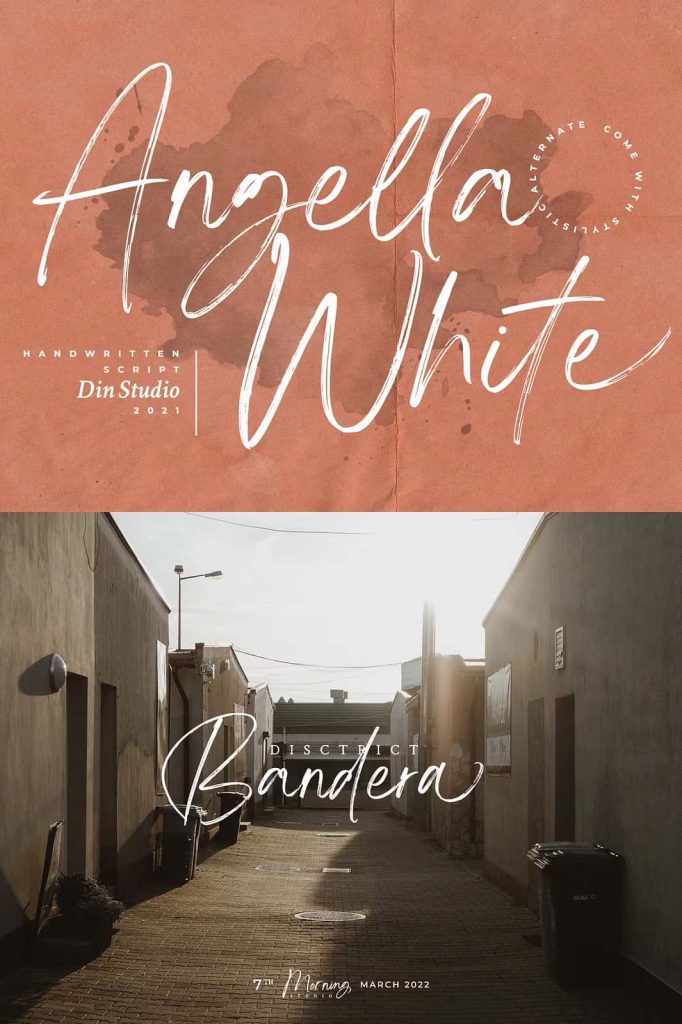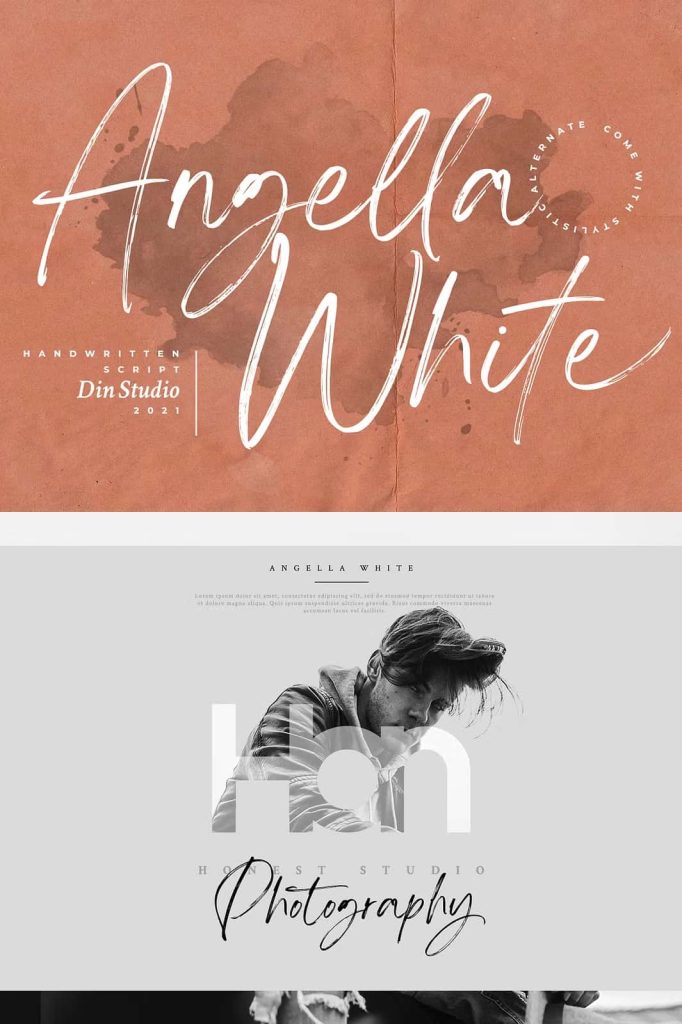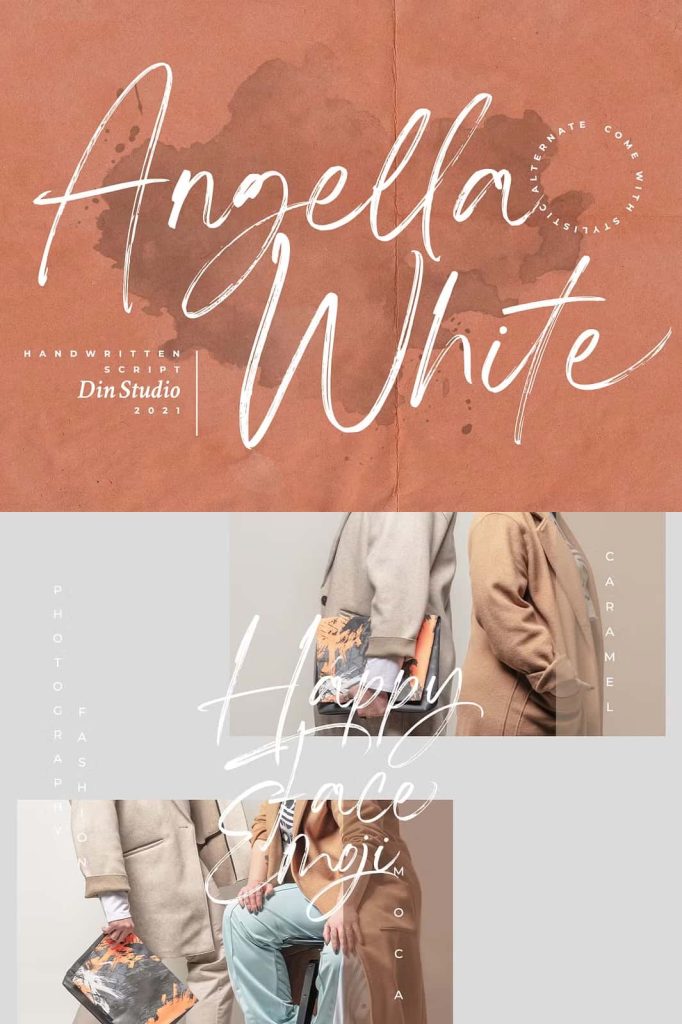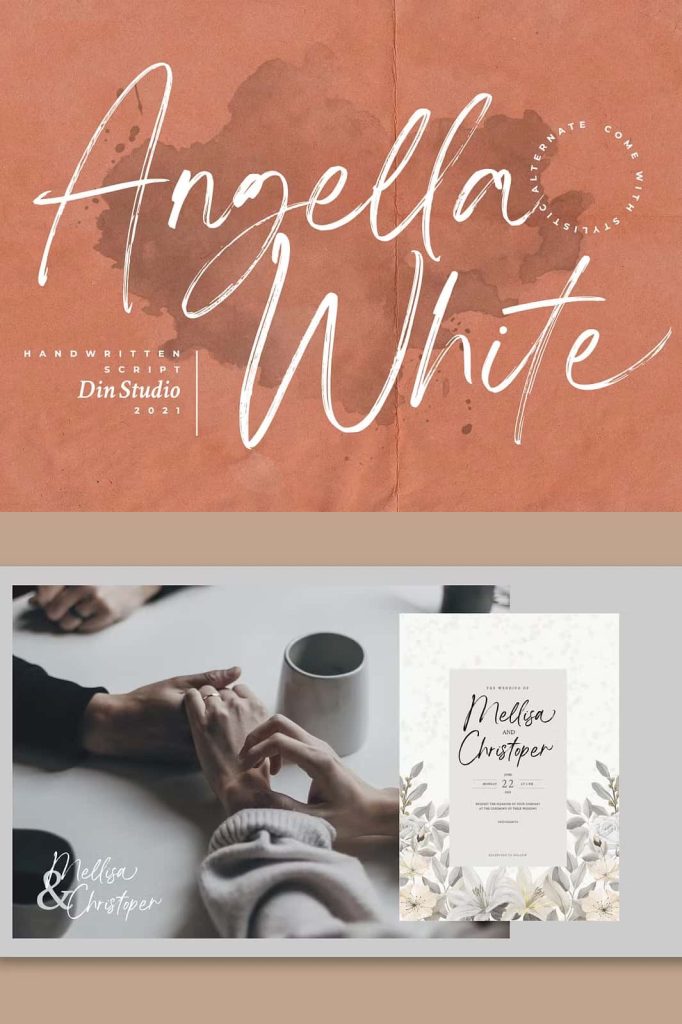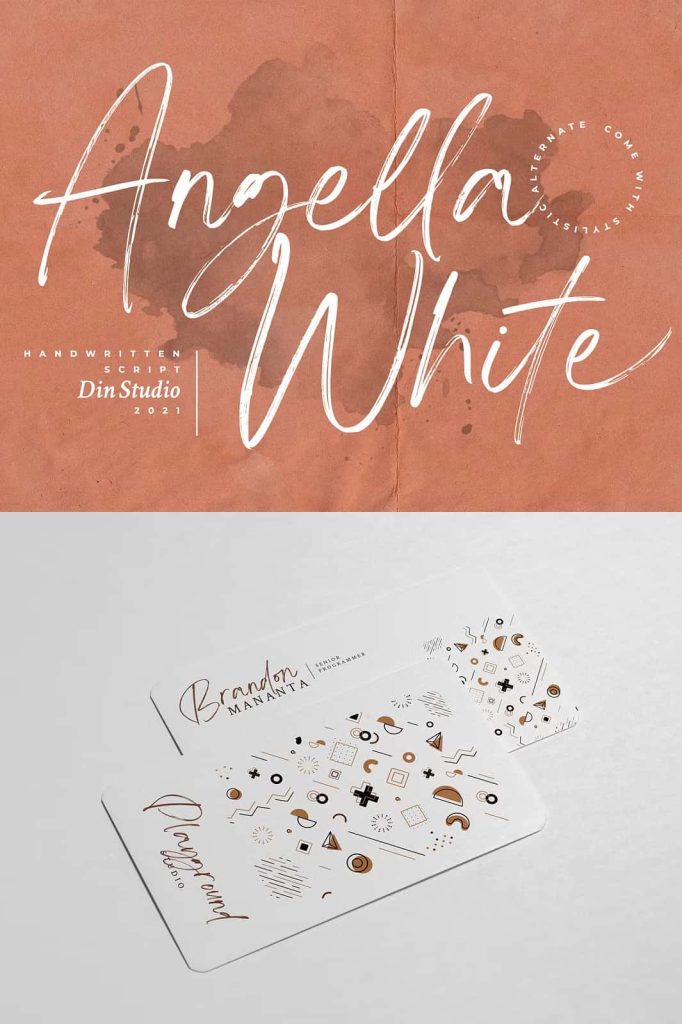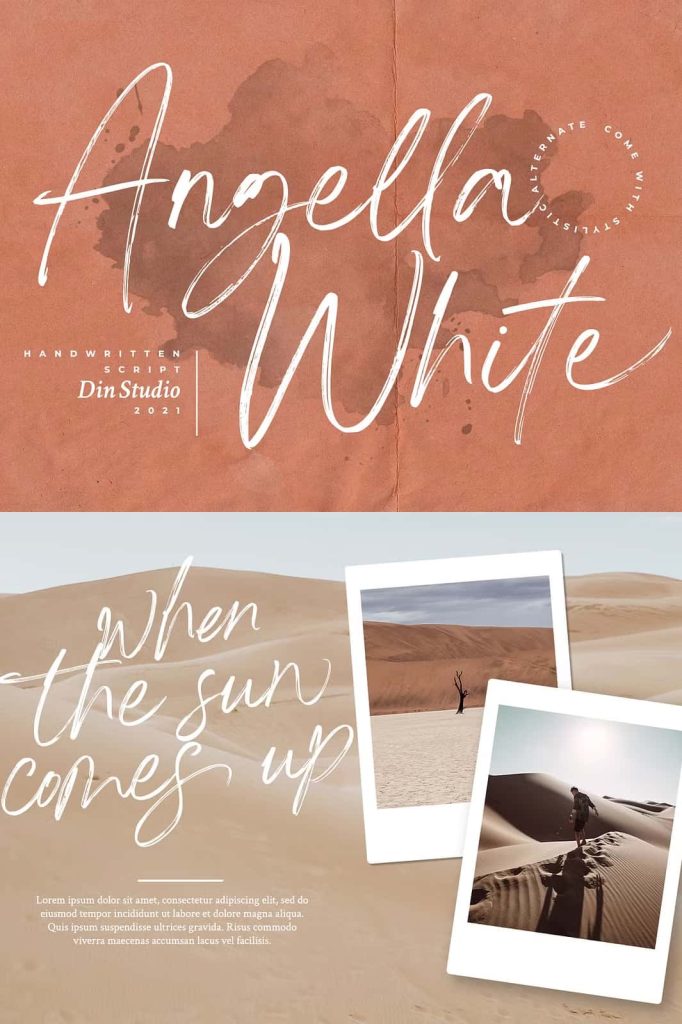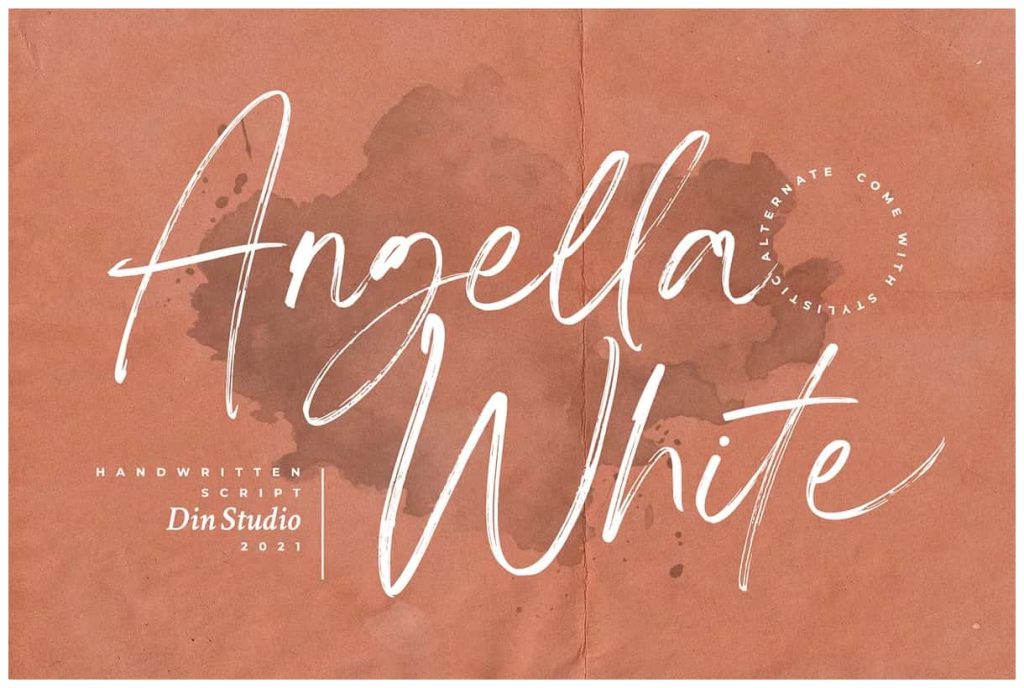
Angella WhiteleastedMay 10, 2025Fonts A beautifully handcrafted font combined with brush style that’ll make your guests sing and elevate your projects! Download